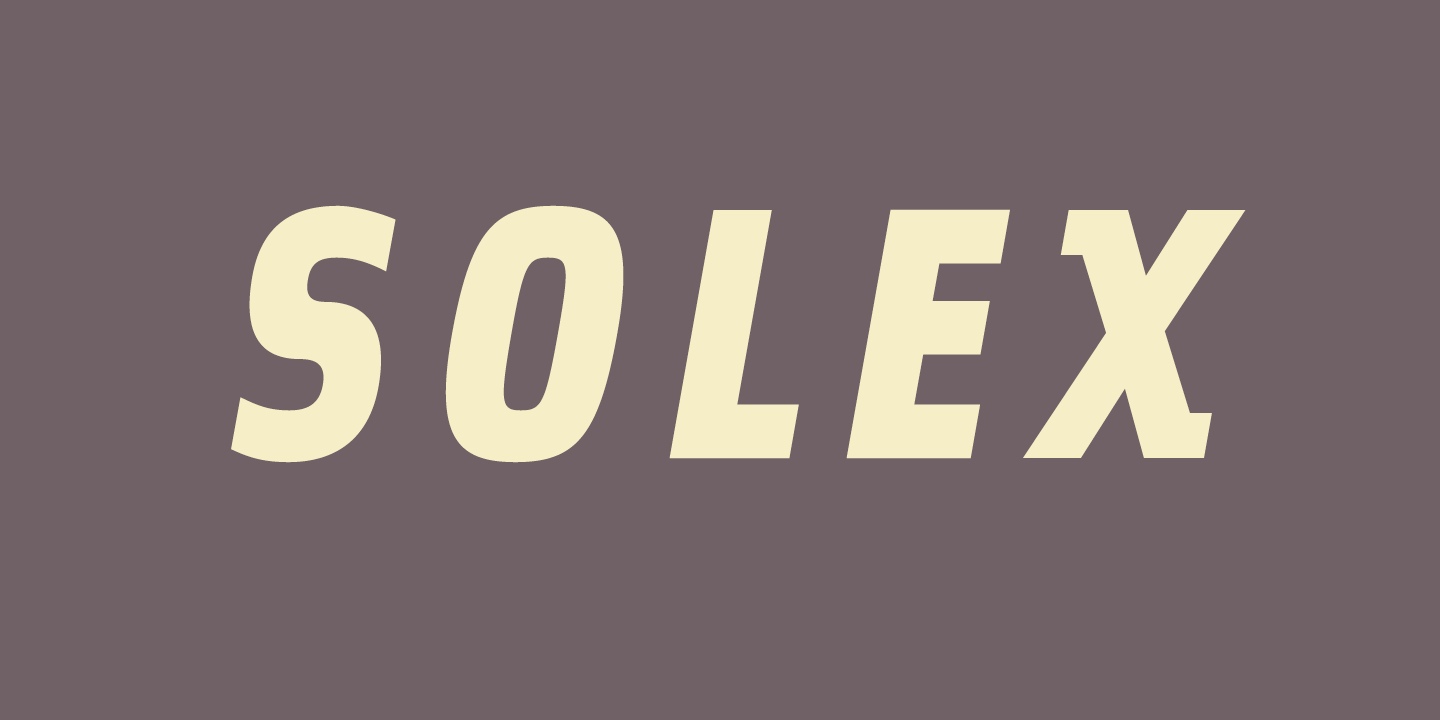
Solex Font
Solex Font is perfect for futuristic tech branding, space exploration marketing, sci-fi movie titles, solar energy company logos, astronomical observatory signage, cutting-edge research institute materials, innovative startup identities, and advanced engineering presentations. This visionary typeface excels in applications where technological advancement and cosmic inspiration are essential for creating forward-thinking and innovative brand experiences.
What makes Solex Font truly exciting is its stellar embodiment of space-age aesthetics and solar energy that captures the infinite possibilities of technological exploration and cosmic discovery. The font features sleek, geometric letterforms with precise angles and dynamic proportions that evoke the precision of spacecraft engineering and the brilliance of solar phenomena. Its futuristic character and luminous quality create an immediate sense of innovation and cosmic wonder that resonates with audiences fascinated by space exploration and renewable energy technologies. The typeface's stellar personality and scientific precision make it perfect for brands wanting to convey cutting-edge innovation, sustainability, and connection to the vast possibilities of space and solar power.
The Solex Font family includes regular and bold weights, complemented by technological alternates and space-inspired design elements. The font offers comprehensive character sets with scientific symbols and futuristic styling details that enhance its cosmic aesthetic. Additional graphic elements including stars, solar rays, geometric patterns, and orbital motifs provide designers with complete branding tools rooted in space exploration and sustainable energy innovation.